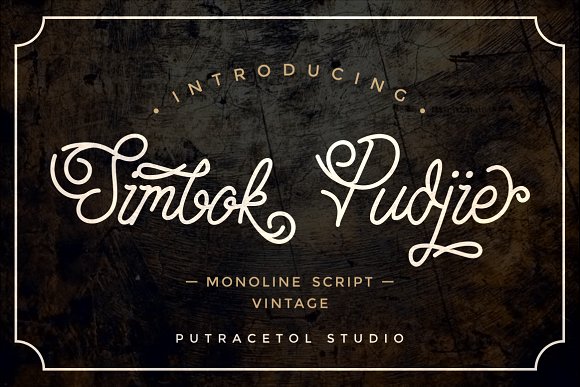
Simbok Pudjie Script
Simbok Pudjie Script Font
Simbok Pudjie is a monoline script font with a classic and vintage touch. Can be used for various purposes such as headlines, titles, heading, logos, posters, invitation,book, branding, booklet, flyer and any creative design. This font comes with many features such as ligatures, alternate, etc and also support multilingual.